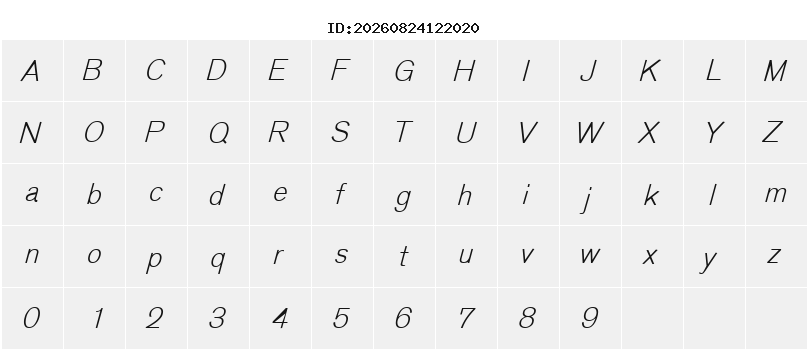
• Font Name: Sage Light
• Font Style: Oblique
• Full Font Name: Sage Light Oblique
Sage Light.ttf is a modern, elegant sans-serif font designed for ultimate readability and visual harmony. Perfect for branding, headlines, web design, and print materials.